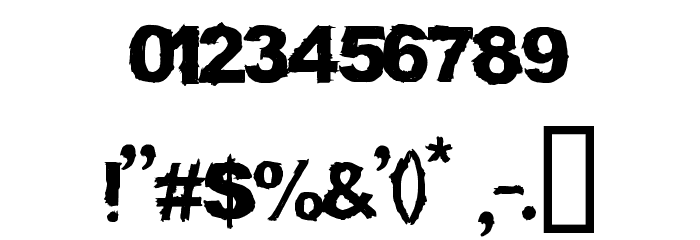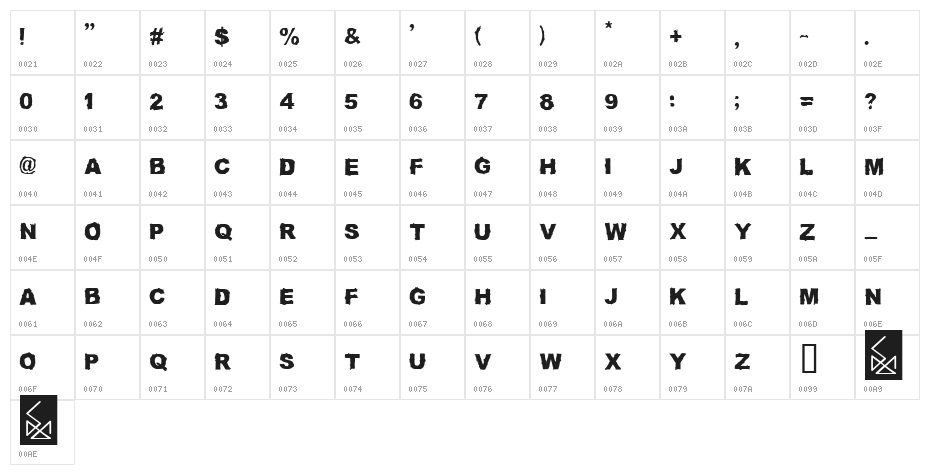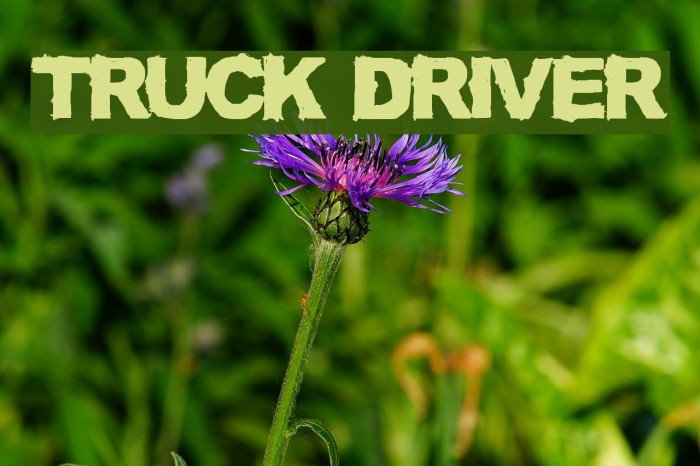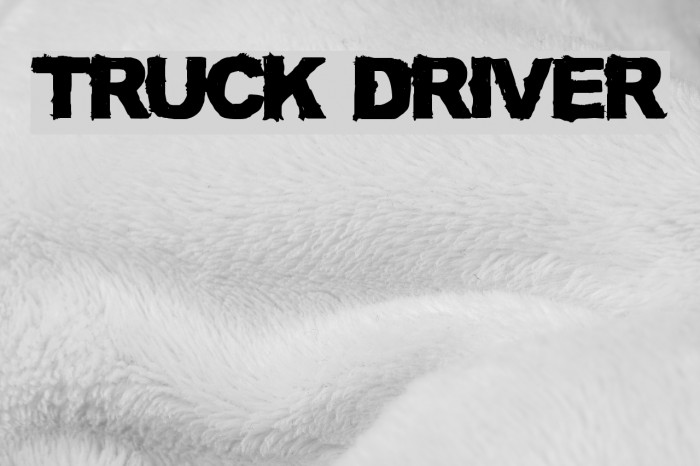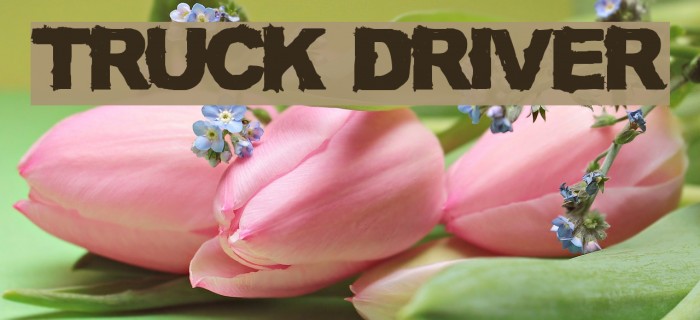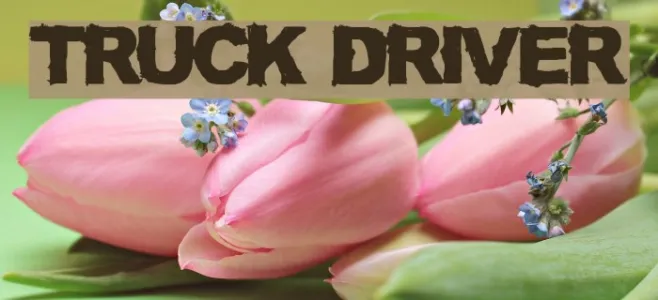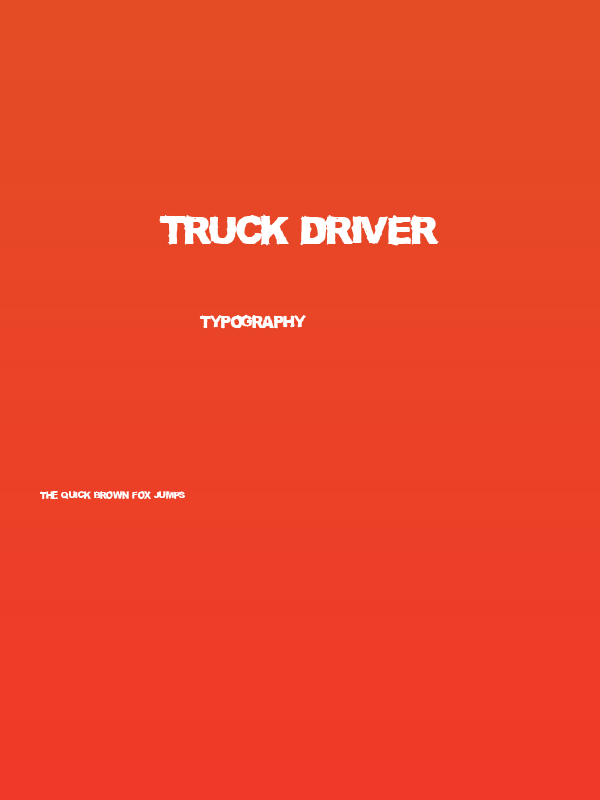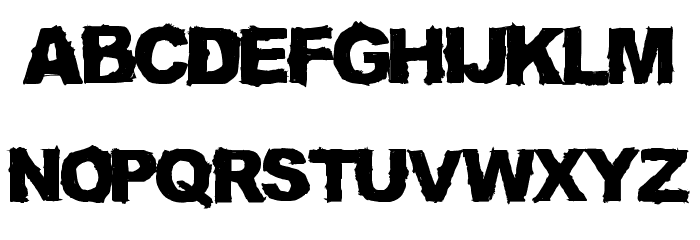
TRUCK DRIVER Font
TRUCK DRIVER Description
This font features a rugged, distressed style that gives it a bold and impactful appearance. The uppercase letters are prominent and slightly irregular, creating a sense of movement and energy. The edges are rough and uneven, adding to the font's gritty and industrial feel. The numbers and special characters maintain this aesthetic, ensuring consistency across all elements. This font is ideal for projects that require a strong, attention-grabbing typeface with a touch of edginess.
| Proposed Projects | Perfect for posters, album covers, branding for outdoor or adventure products, and any design needing a bold, gritty aesthetic. |